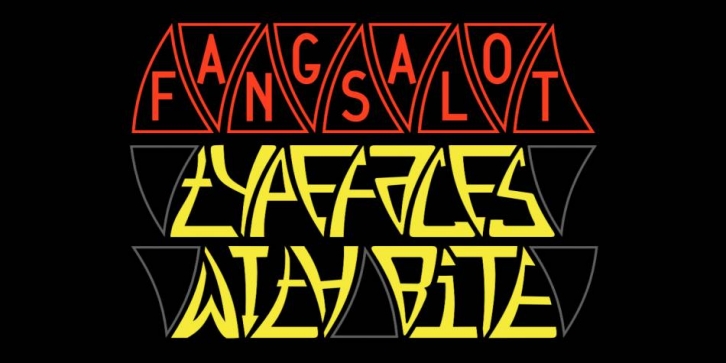
Publisher: Ingrimayne Type
Designed by Robert Schenk, FangsALot is a novelty font family. This typeface has nine styles and was published by Ingrimayne Type.
FangsALot is a bizarre typeface family that was designed to alternate two character sets. These sets are alternated automatically in applications that support the OpenType feature Contextual Alternatives (calt). The template used to design characters is a distorted triangle that resembles a curved tooth or a fang. This shape can be flipped horizontally, vertically, and both horizontally and vertically to give four orientations. Two of these orientations are used in the regular style and two in what is called the italic style.
I thought the fang motif did not come through clearly in the regular and italic styles. Rather the impression they give is more like graffiti lettering. To emphasize the fang motif I added two more members to the family by filling fang outlines with unadorned sans-serif characters. Then to allow more color in lettering, I added two more styles with letters on black. I then had six styles based on triangles skewed left and right. Why not fill the family out with three more styles based on an isosceles triangle? The end result is a family of nine.
All members of the family are monospaced and are hard to read. The three graffiti-like styles have some alternative letters that can be accessed with the OpenType feature Stylistic Sets. Also, for each style it is possible to use only one set of characters by adding a space after each letter and then adjusting the character spacing. The graffiti-like styles can be useful in situations where the hard-to-read property is not important but where a menacing and vicious touch is needed, such as topics of sharks, teeth, biting, and vampires.